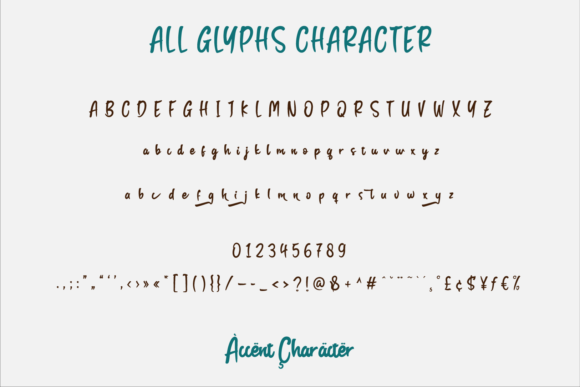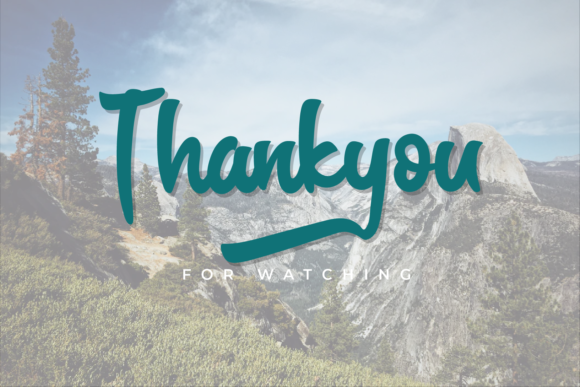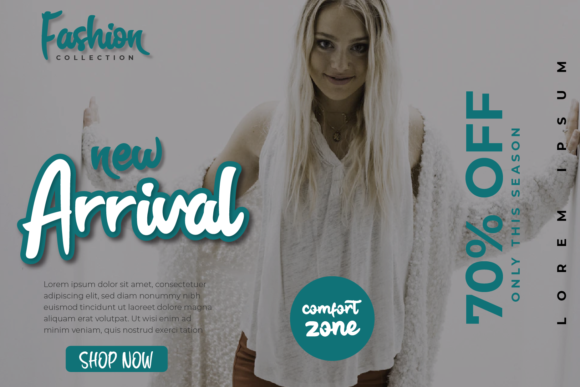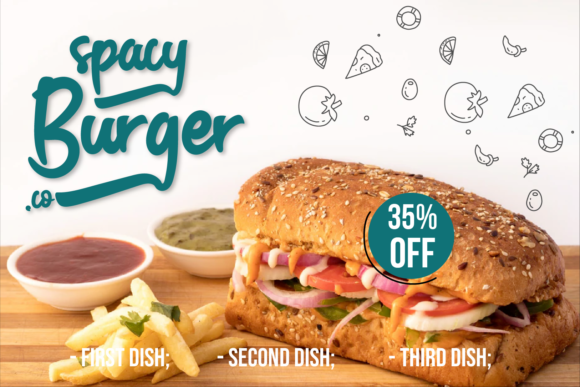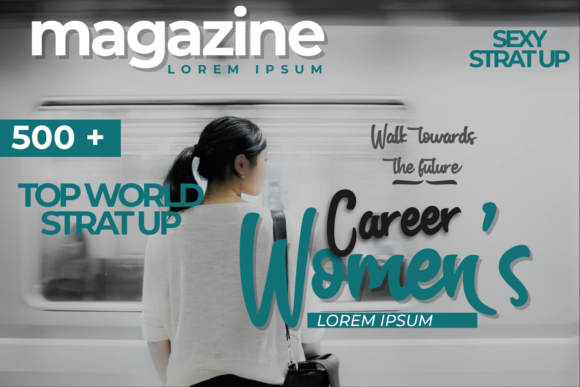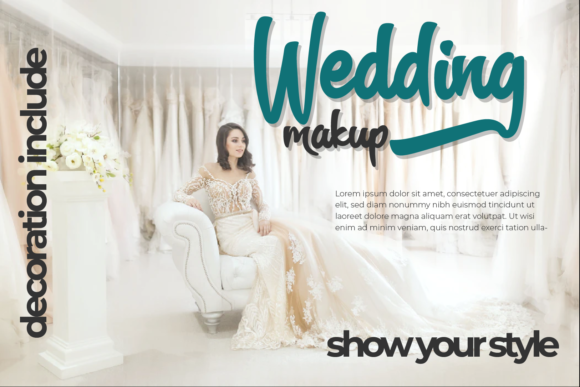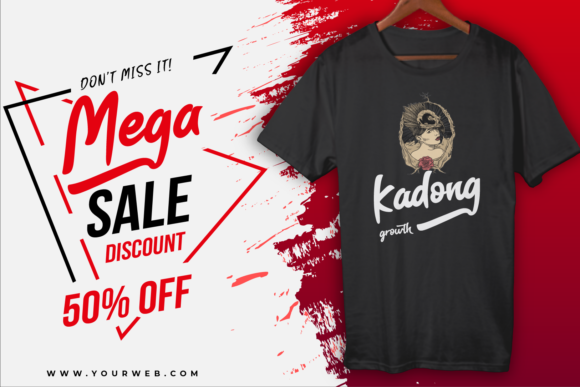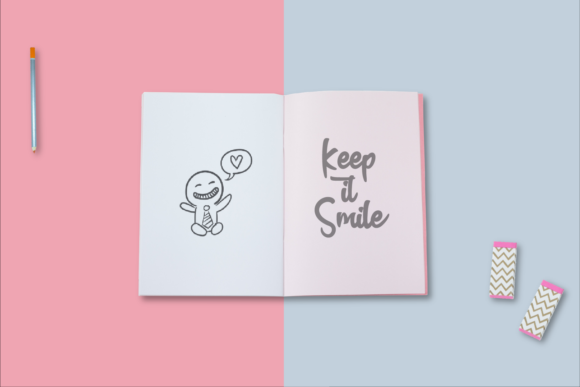
Ranting Font
About Ranting Font
Ranting is a simple and casual handwritten font. Incredibly versatile, this font fits a wide pool of designs, elevating them to the highest levels.